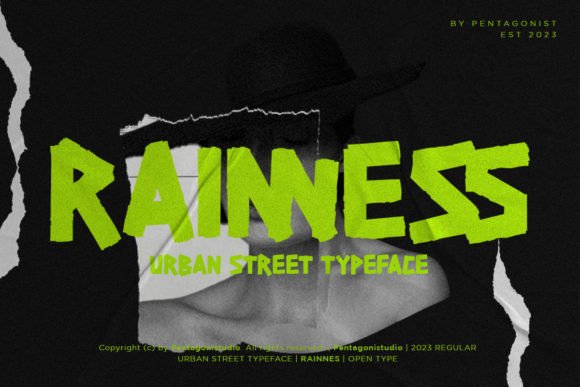
Rainness: A Display Font That Builds Real Brand Trust
As a small business owner who’s designed everything from coffee sleeve labels to Instagram story templates, I know how much a single font choice can shape how customers perceive my brand—not just aesthetically, but emotionally and professionally. Rainness isn’t just another decorative typeface. It’s a display font with urban energy and refined edge: rough enough to feel authentic, groovy enough to stand out, and elegant enough to hold its own on luxury packaging or a boutique storefront sign.
Rainness carries a confident, grounded personality—think hand-painted mural meets minimalist branding. Its letterforms have subtle texture and intentional irregularity, giving it character without sacrificing clarity. Unlike overly ornate script fonts or sterile tech-inspired sans serifs, Rainness lands in that sweet spot where creativity and credibility meet. It’s expressive, yes—but never at the expense of legibility or intention.
I’ve used Rainness across real touchpoints: a ceramic studio’s product tags, a wellness coach’s workshop posters, a local café’s chalkboard-style menu board (digitally recreated), and even the foil-stamped logo on handmade soap boxes. In every case, it helped unify the look without overwhelming the message. Because Rainness is PUA encoded, inserting custom ligatures or alternate glyphs is seamless—no fumbling with character maps when designing a logo lockup or social media banner.
For consistency, I treat Rainness as my headline and accent font only. It shines brightest where attention matters most: logos, website hero banners, packaging front panels, Instagram post titles, and printed flyers. On a candle label? Perfect for the scent name (“Midnight Cedar”) in bold, textured caps—while the ingredients list stays in a clean, readable sans serif. On a coaching business website? Rainness anchors the headline “You Belong Here,” while body text flows smoothly in a neutral typeface. This contrast builds hierarchy—and trust.
Readability is non-negotiable in real-world use, and Rainness delivers where it counts. At 24pt+ on packaging or signage, its strong shapes and open counters hold up beautifully—even on kraft paper or matte-finish stickers. On mobile screens, it remains distinct in thumbnail-sized social graphics, especially when paired with generous spacing and high-contrast backgrounds. Just avoid using it below 16pt for body copy or fine print; it’s a display font, not a workhorse text face—and that’s exactly why it works so well.
Here’s what’s worked for me in practice:
Before committing Rainness across your entire brand system, test it in context. Drop it into a mock-up of your actual product label—not just a blank Photoshop file. Print a sample sticker. View your Instagram story draft on three different phones. Does the “R” still read clearly at 32px on a dark background? Does the “g” retain its groove next to a thin sans serif? These small checks prevent costly reprints or redesigns later.
Font pairing is where Rainness truly earns its keep. Its personality calls for balance—not competition. I consistently pair it with either:
1. A friendly, humanist sans serif (like Poppins or Montserrat) for clean contrast and maximum readability in supporting text
2. A warm, low-contrast serif (like Cormorant Garamond or Lora) when aiming for elevated, editorial sophistication—ideal for boutiques or artisan goods
Avoid pairing Rainness with other decorative, distressed, or ultra-thin fonts. That creates visual noise, not harmony. Let it lead—and give it room to breathe.
What makes Rainness more than just a pretty face is how reliably it supports brand strategy. When your café’s loyalty card, website banner, and takeout bag all share the same confident, urban-elegant tone, customers subconsciously register cohesion—and cohesion reads as professionalism. When your handmade jewelry line uses Rainness for collection names and a crisp sans for care instructions, you signal both artistry and reliability. That alignment isn’t accidental. It’s intentional typography, applied thoughtfully.
So if you’re refreshing your brand identity—or building one from scratch—don’t underestimate how much Rainness can do. It’s not about chasing trends. It’s about choosing a typeface that reflects your values, resonates with your audience, and shows up consistently across every surface your customers touch. Whether you’re printing 500 product labels or designing your first Shopify banner, Rainness gives your brand a voice that’s unmistakably yours—and unmistakably trustworthy.